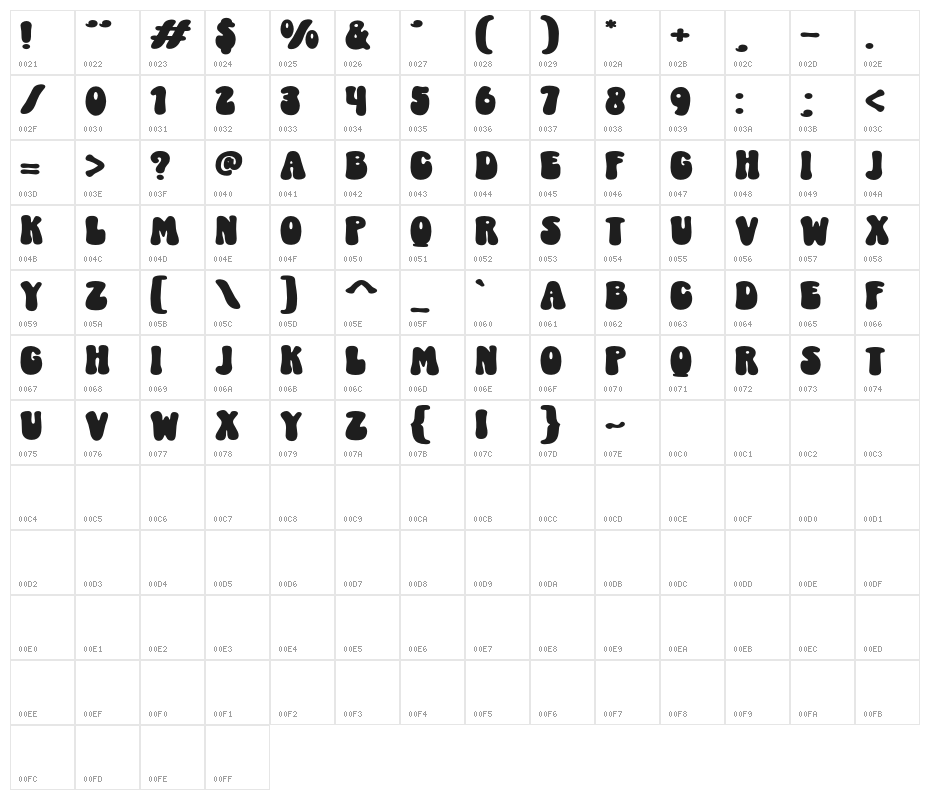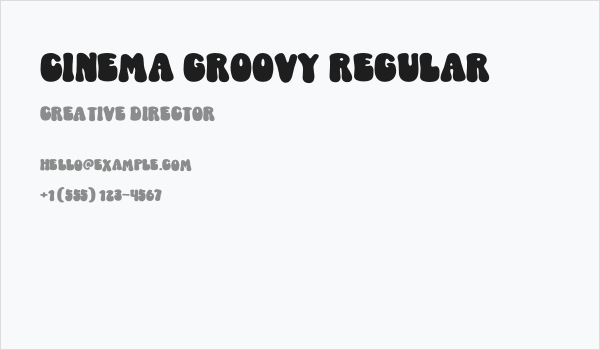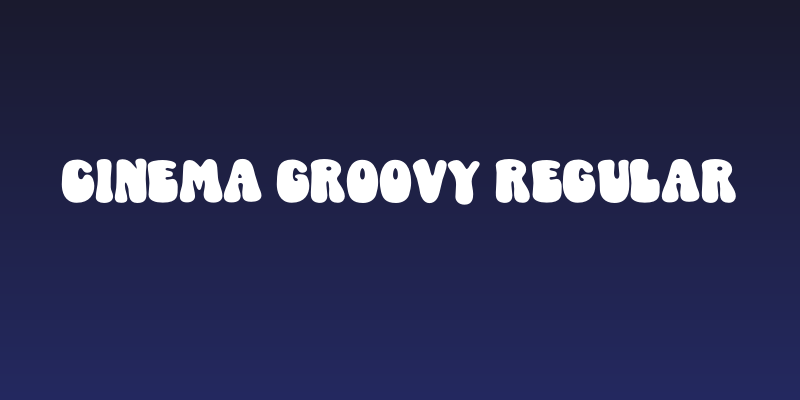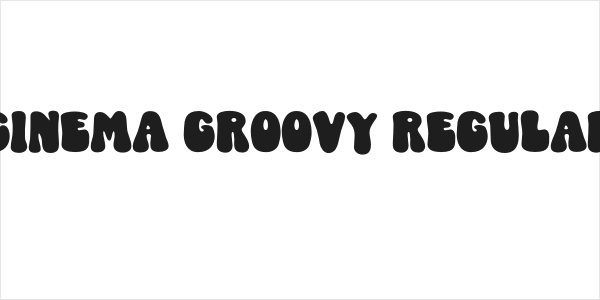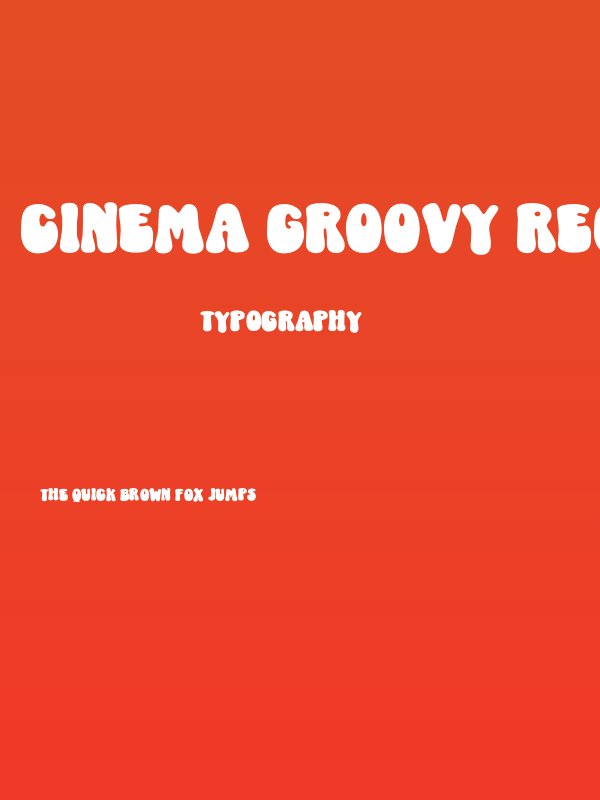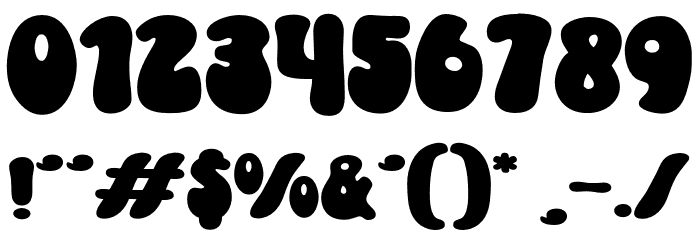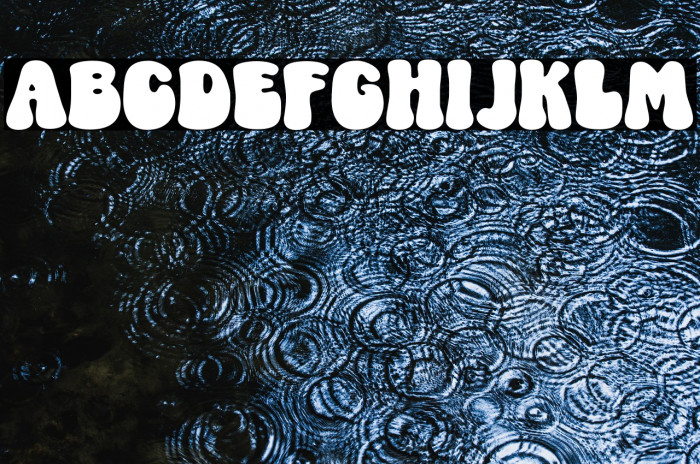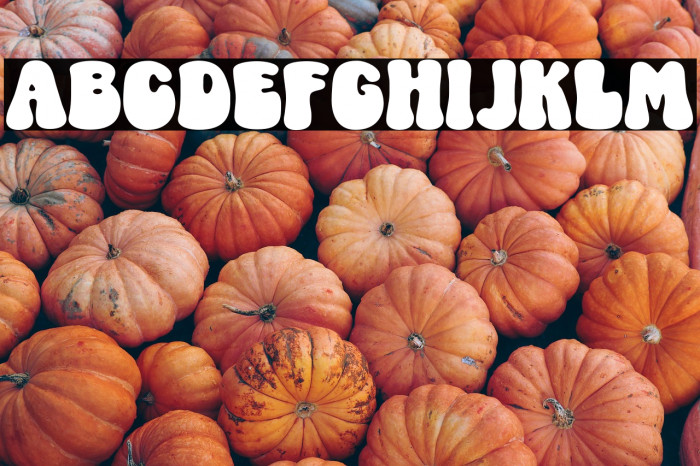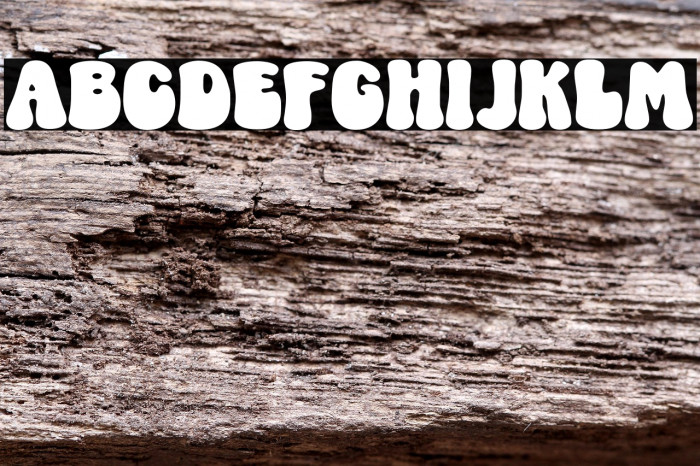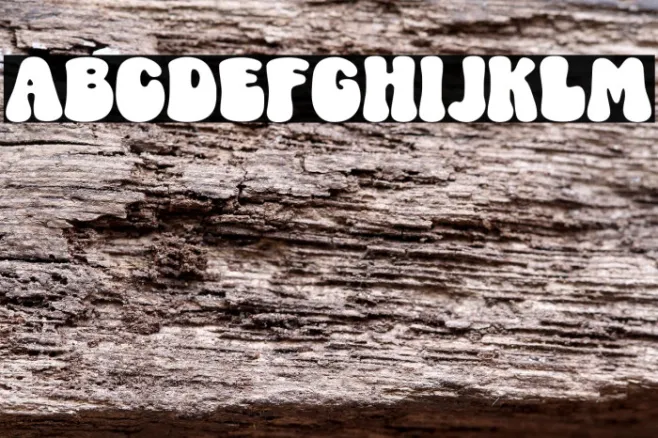
Cinema Groovy Regular Font
Cinema Groovy Regular Description
This font features a bold and playful design, characterized by its thick, rounded letters that exude a sense of fun and energy. The characters are uniformly bold, with a slightly exaggerated width that gives them a bubbly appearance. The overall style is reminiscent of retro and groovy aesthetics, making it ideal for designs that aim to capture a vintage or playful vibe. The numbers and special characters maintain the same bold and rounded style, ensuring consistency across all elements. Its unique style makes it stand out, perfect for projects that require a touch of whimsy and boldness.
| Proposed Projects | Ideal for posters, music album covers, children's books, and retro-themed designs. |